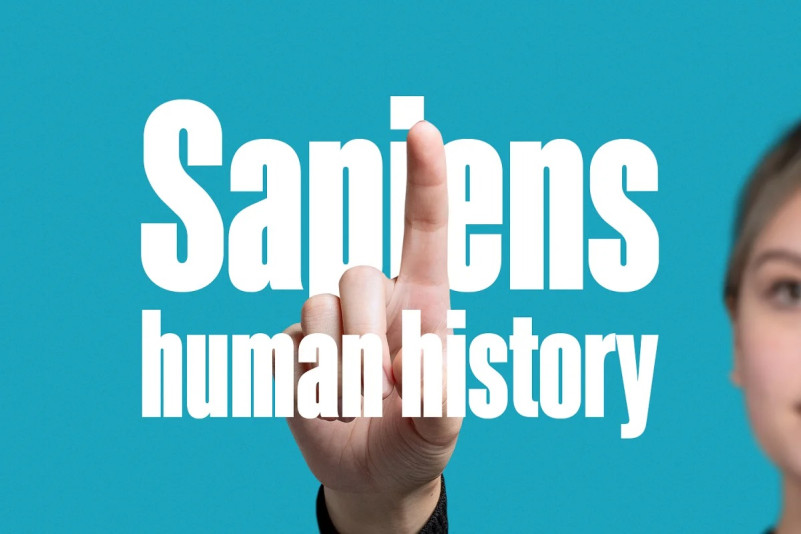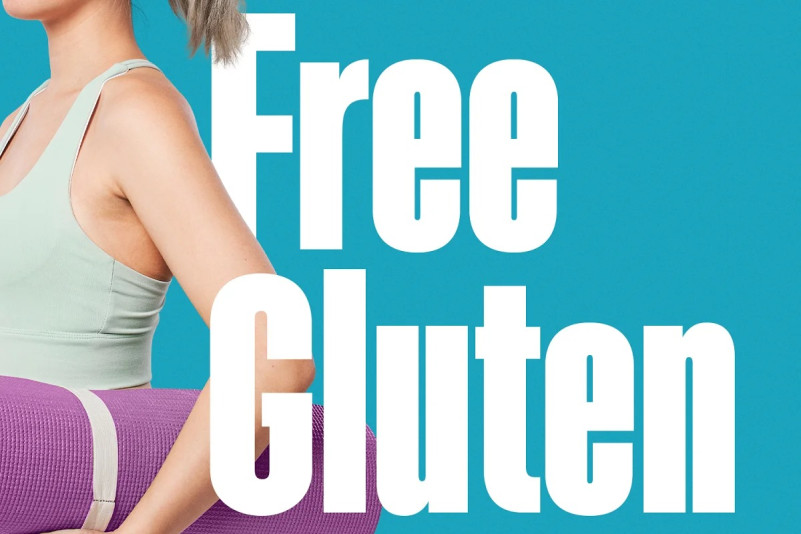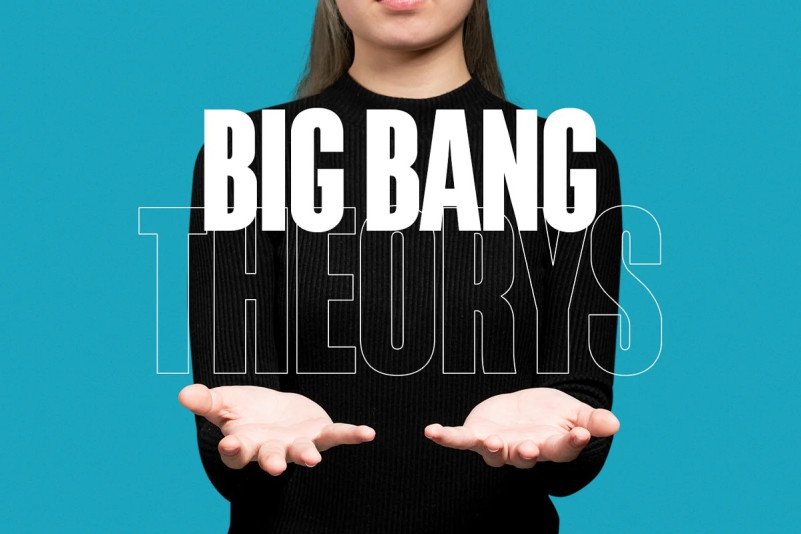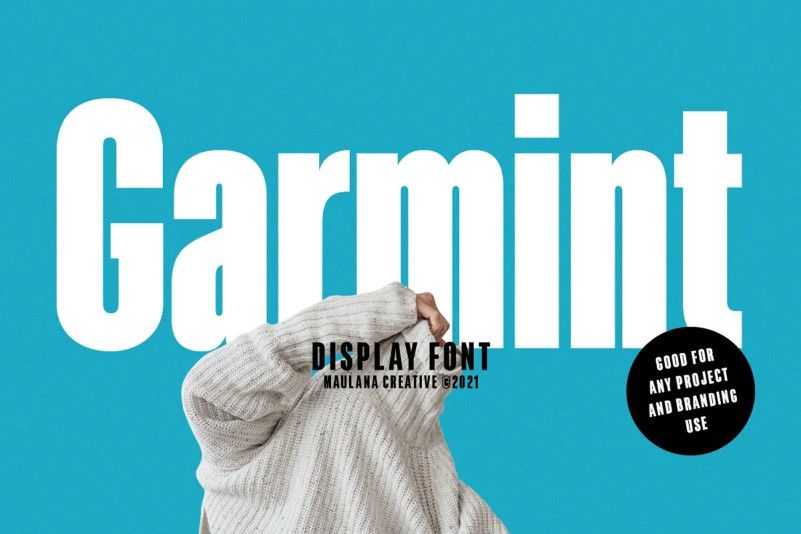
Garmint Font
Garmint Sans Serif Font is a bold sans serif display typeface Maulana Creative. With bold condensed stroke and fun character. To give you an extra creative work, Garmint font support multilingual more than 100+ language. This font is good for logo design, Social media, Movie Titles, Books Titles, a short text even a long text letter and good for your secondary text font with signature or script typeface. Make a stunning work with Garmint font.